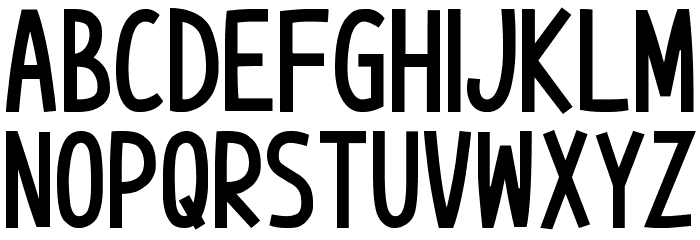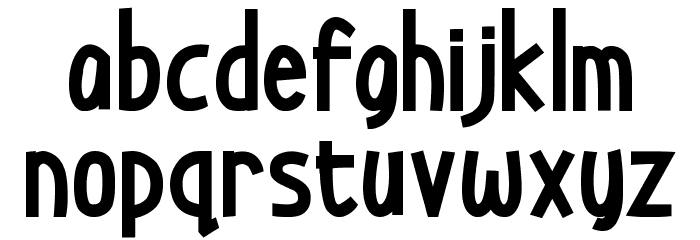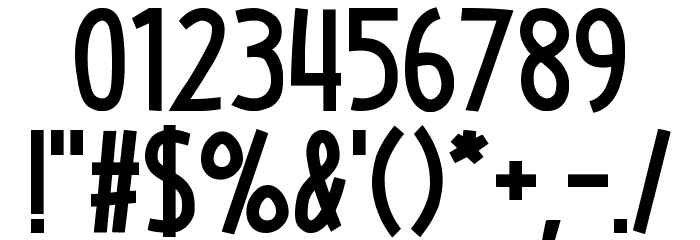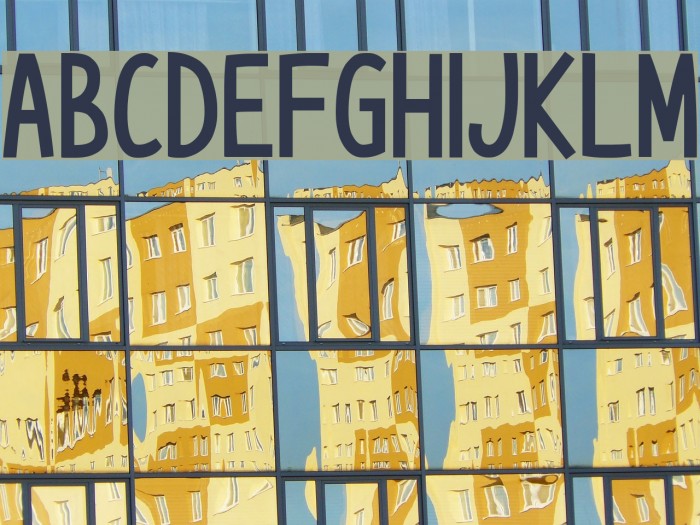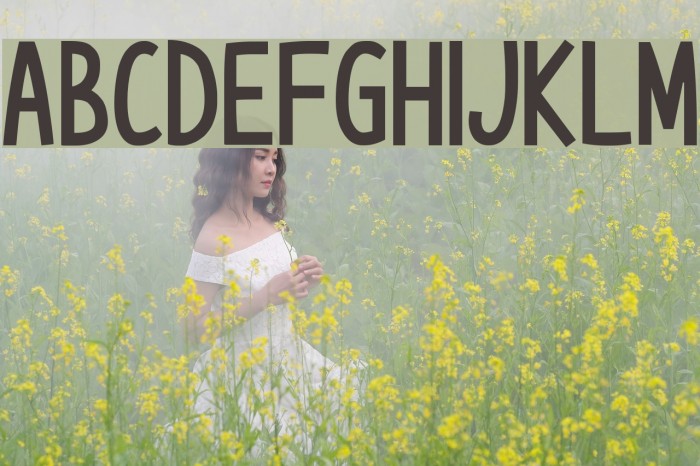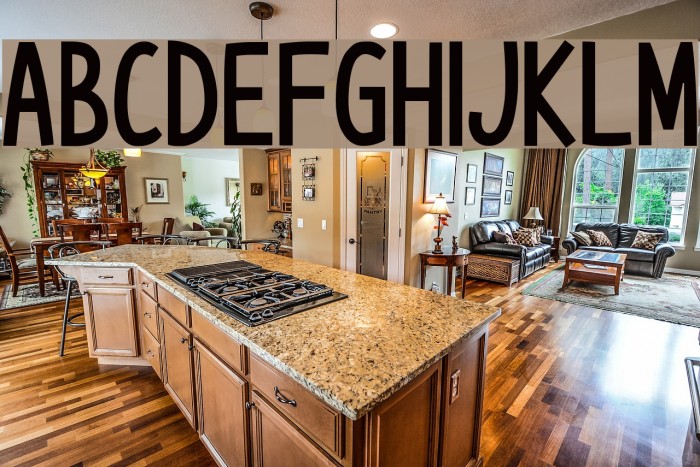
Die Grinsekatze Font
This font features a playful and quirky design with a handwritten feel. The characters are slightly irregular, giving it a whimsical and informal appearance. The uppercase letters are bold and prominent, while the lowercase letters maintain a consistent style with a slight tilt, adding to the casual vibe. The numbers are clear and easy to read, matching the overall style of the alphabet. Special characters are creatively designed, maintaining the playful essence of the font. This font is perfect for projects that require a fun and engaging look.
A playful, handwritten font with a quirky and informal style.
- Proposed Projects: Ideal for children's books, playful branding, casual invitations, and creative posters.
- Overall Style: Playful